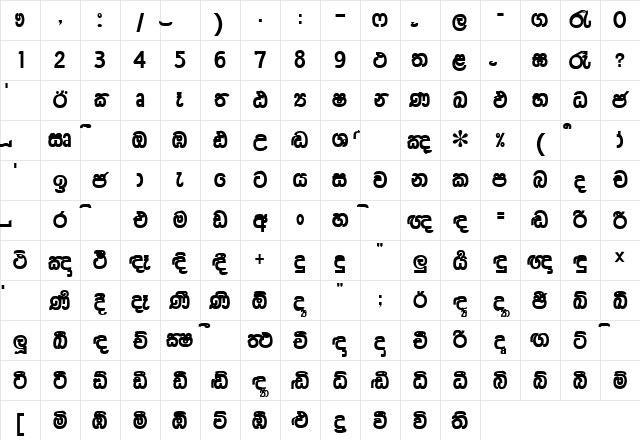
Sinhala - Kumudu Bold
Complete Sinhala - Kumudu Bold glyph index. Displaying only characters natively supported by Sinhala - Kumudu Bold font.
Design Context for Sinhala - Kumudu
Sinhala - Kumudu is a composed and adaptable typeface that performs quietly and consistently across a wide range of design contexts. Its bold stroke weight gives it real presence on the page.